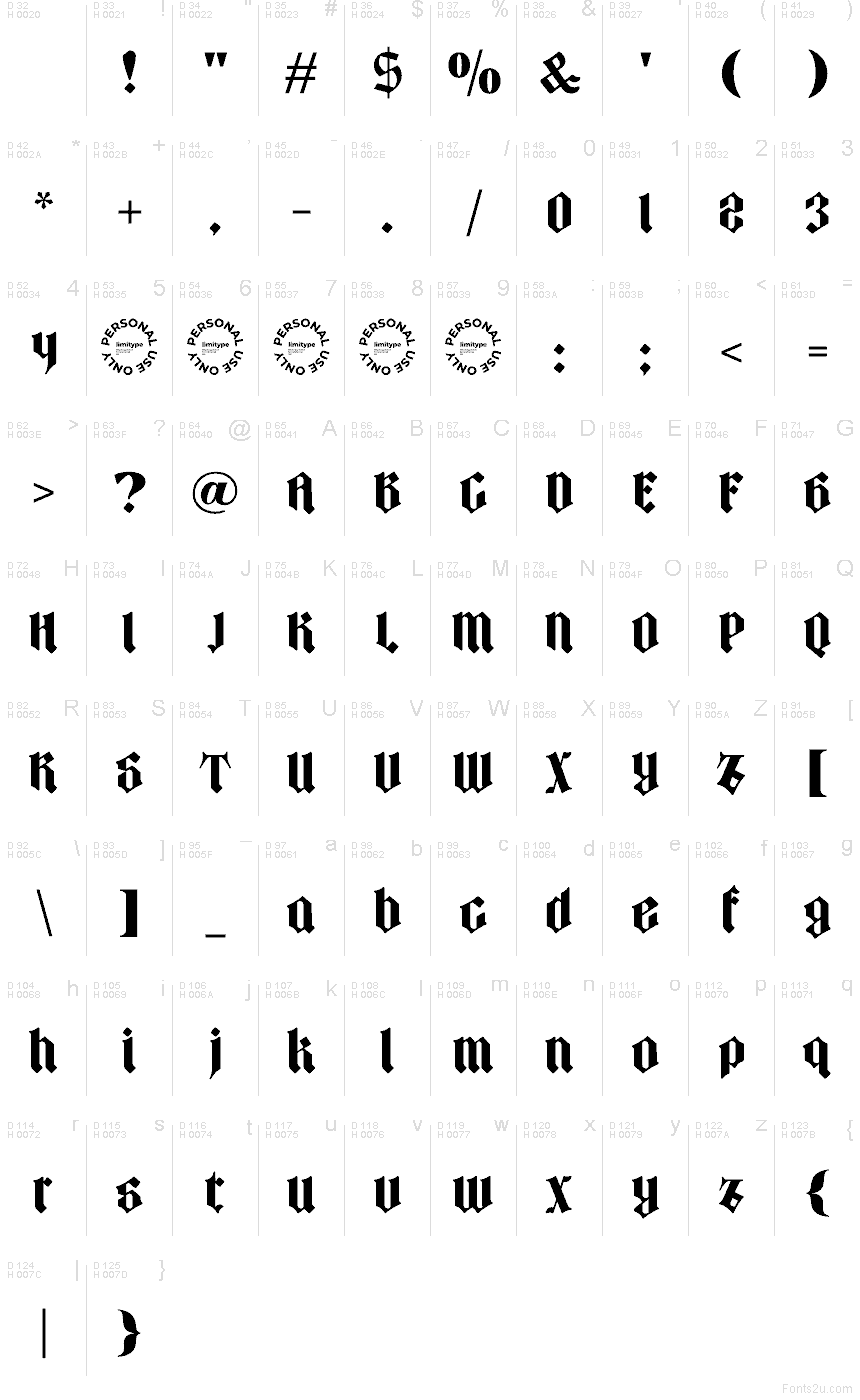
Ethnica Demo
Ethnica font by Limitype is a free gothic medieval typeface that hits that bold, blackletter drama without feeling cramped or fussy. Its tall, chiseled strokes and sharp diamond-like angles give titles a carved-in-stone presence, while the rhythm of the letters keeps words surprisingly readable. There’s a weighty, ink-heavy texture to Ethnica that makes even a single word look like a crest or emblem.
Using Ethnica, you can bring serious gravitas to band logos, fantasy book covers, medieval festival posters, tattoo mockups, esports branding, and metal album art. This free font shines when set large, letting those serrated shapes really breathe; pair it with a simple sans serif for small captions or UI text to keep layouts clear and modern.